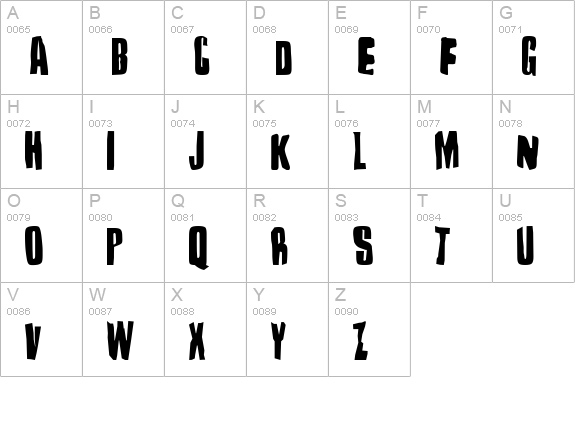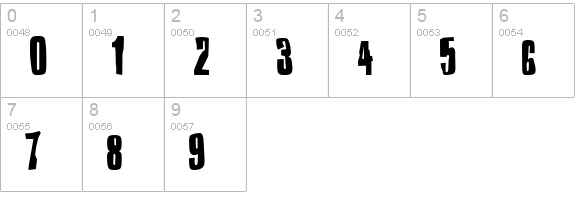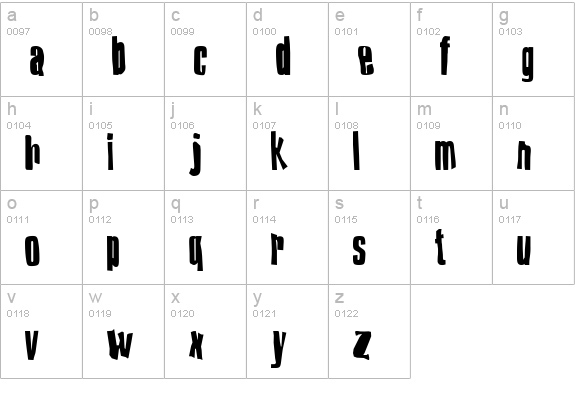
Druillet Font Details
Druillet font is a striking and unique typeface that exudes a sense of futuristic elegance and artistic flair. Its sharp lines and intricate details make it perfect for creating eye-catching designs that demand attention. This font is free to download at FontsMarket.com, allowing designers to easily access and incorporate it into their projects without any cost. With its bold presence and modern aesthetic, Druillet font is sure to make a statement in any design layout or branding campaign. Elevate your typography game with this free and versatile font option available for download today.